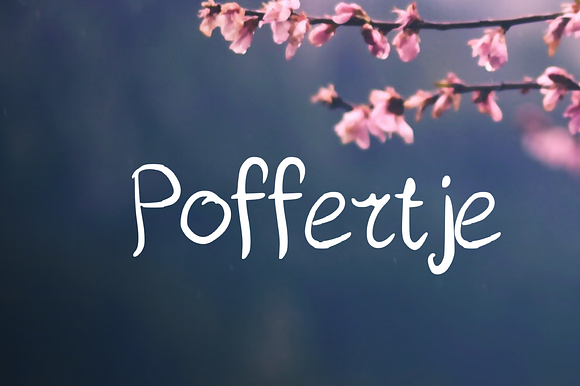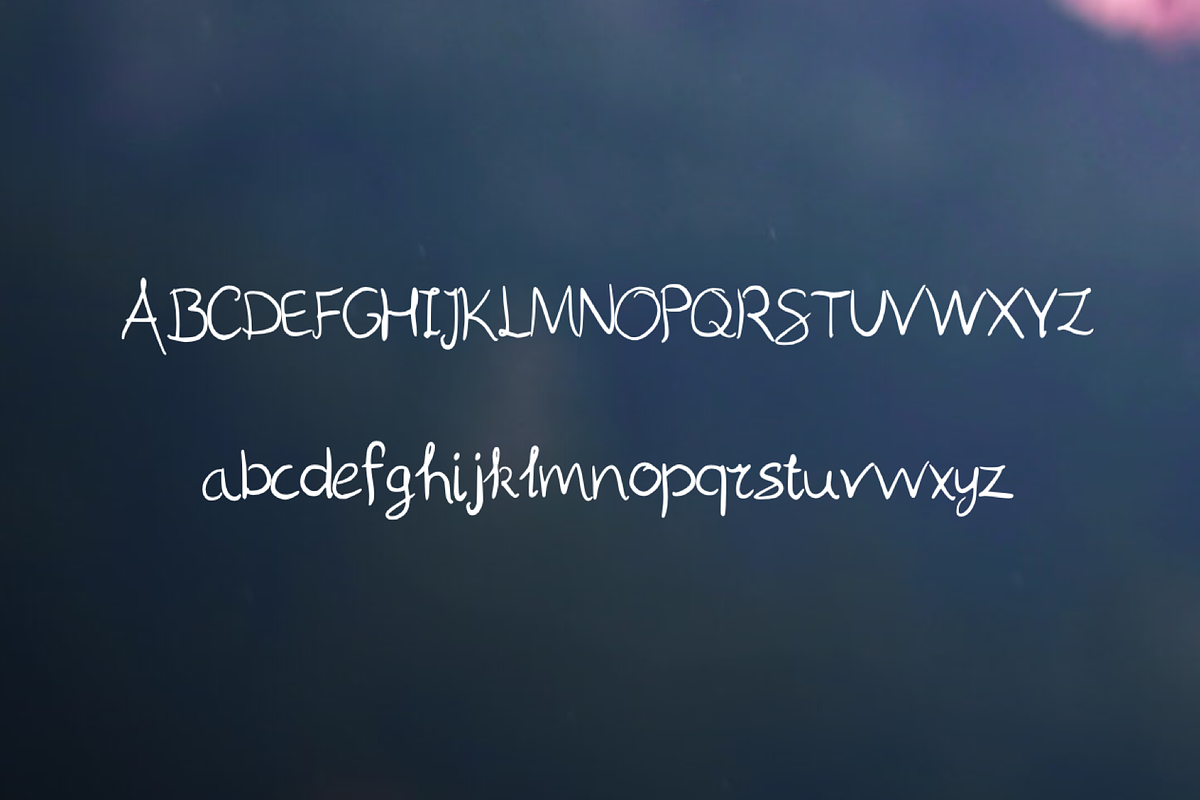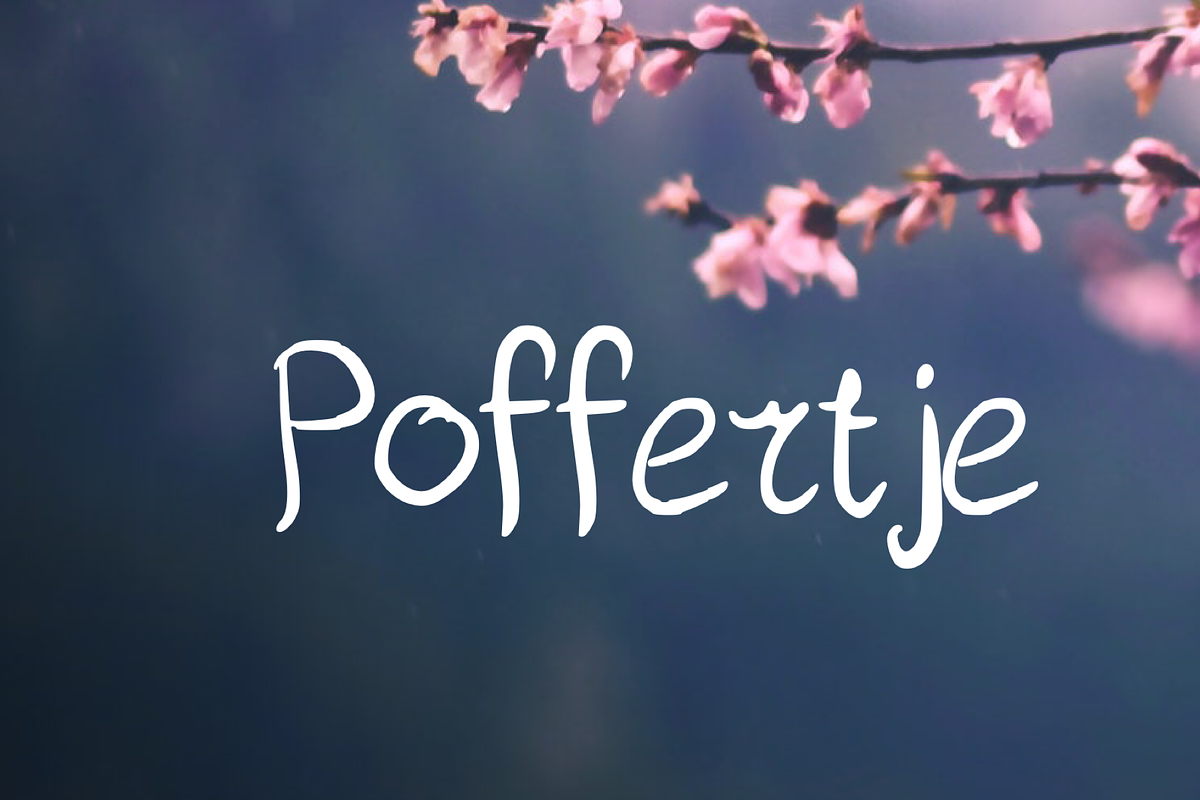
Poffertje Handwritten Script Font
Poffertje is a handwritten font. Ideal for logos, handwritten quotes, product packaging, header, poster, merchandise, social media and greeting cards
Poffertje Handwritten Script Font by Mila Visuals fits naturally into Branding, posters, packaging, typography.